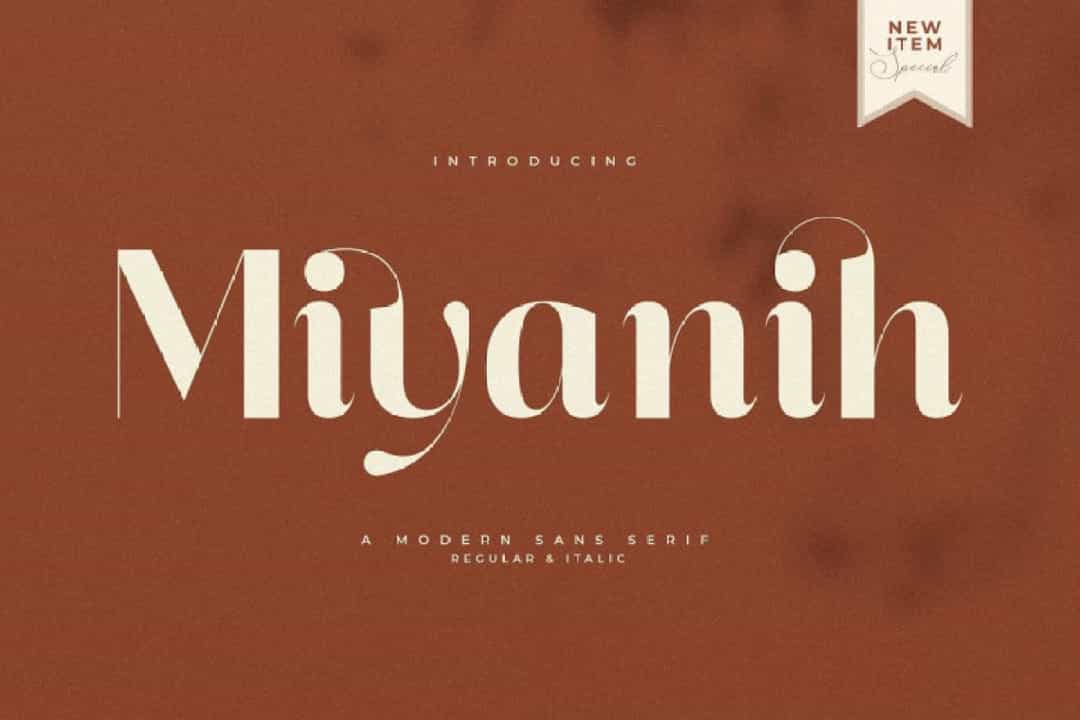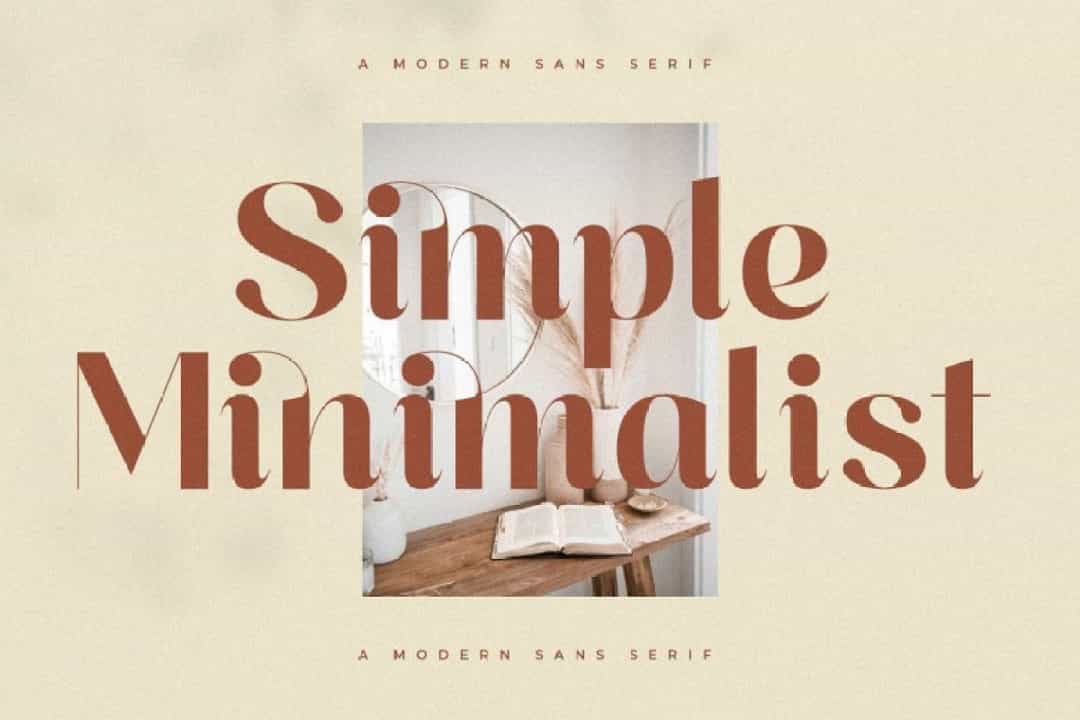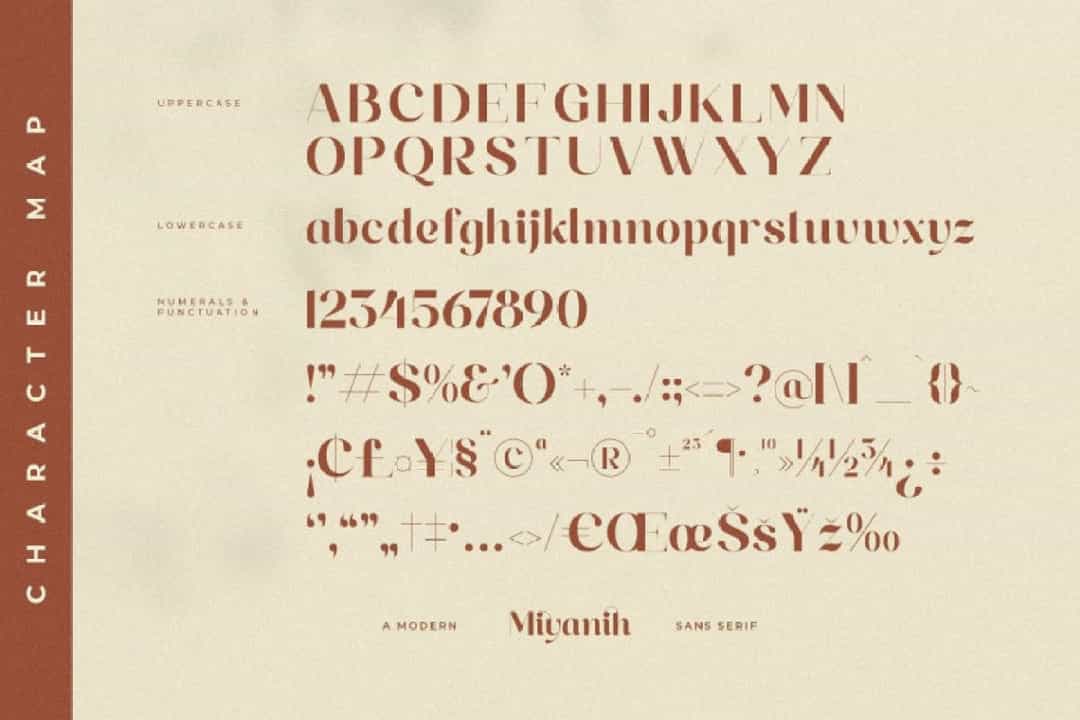
Miyanih is an elegant serif typeface with an appealing modern appearance that makes an excellent choice for creating sophisticated logos, fashion labels, clothing items, magazines and much more. Additionally, this font can also be used for quotes, lettering and lettering services as well.